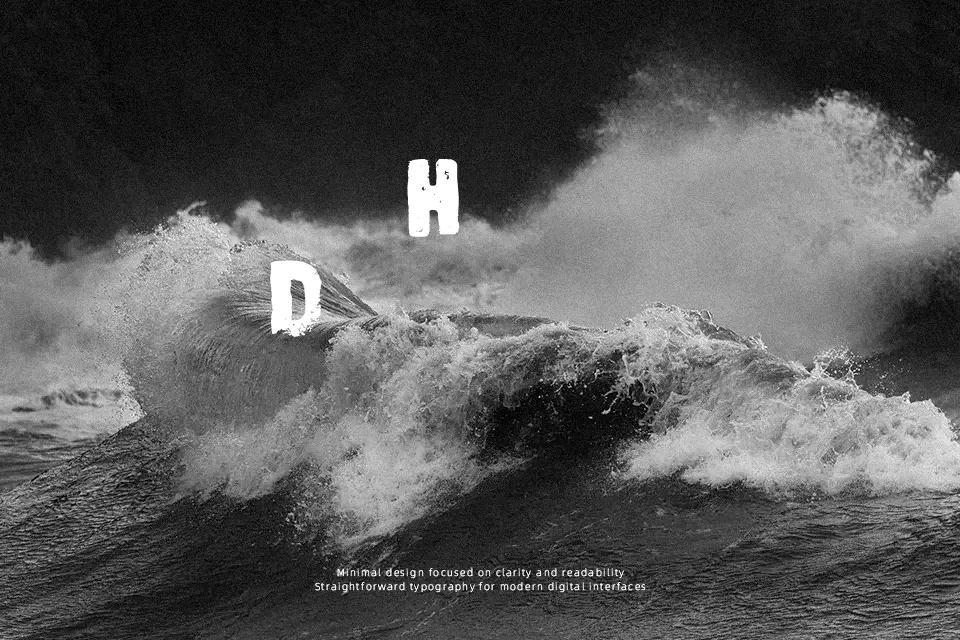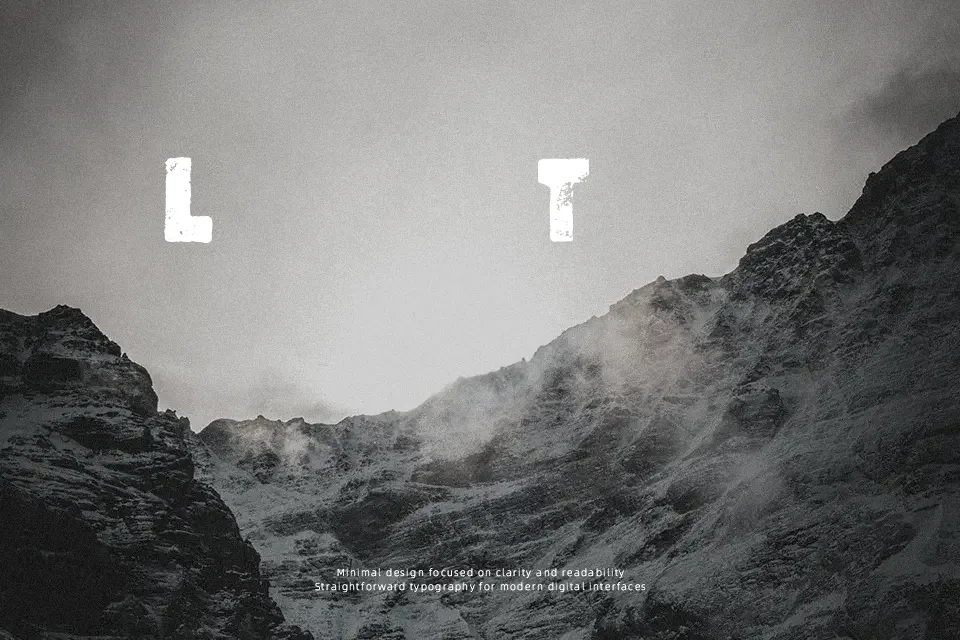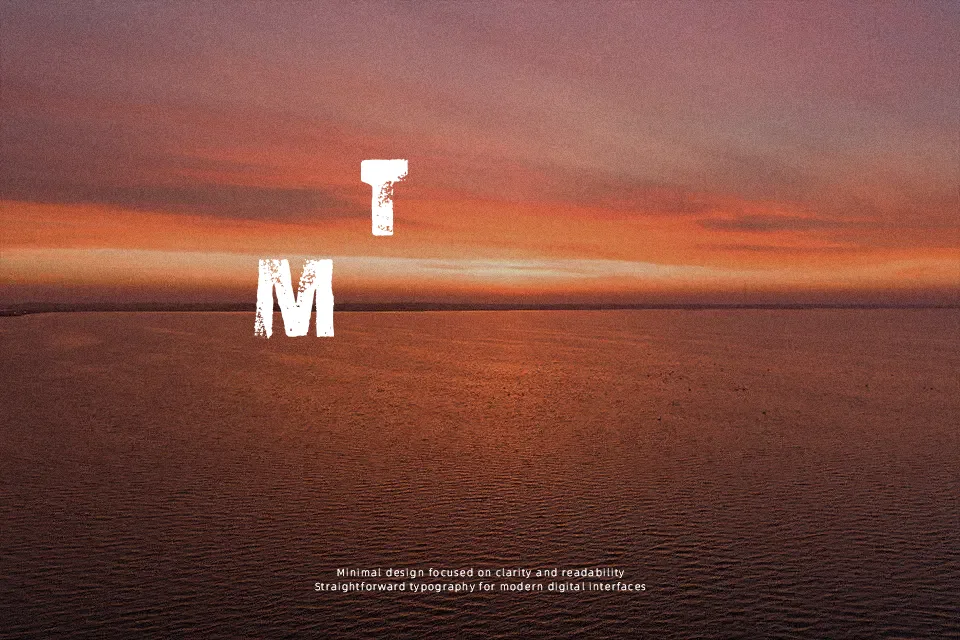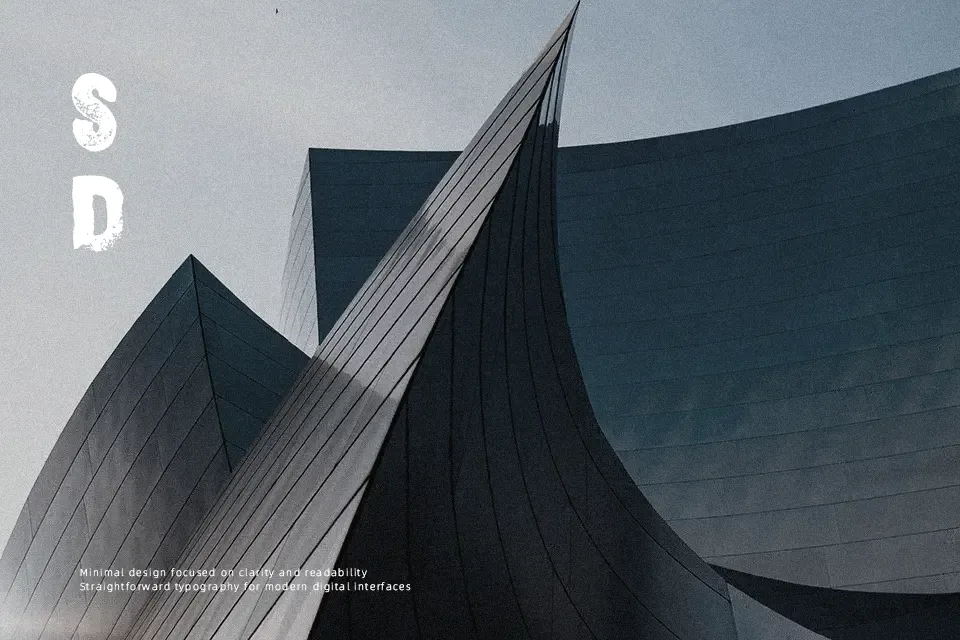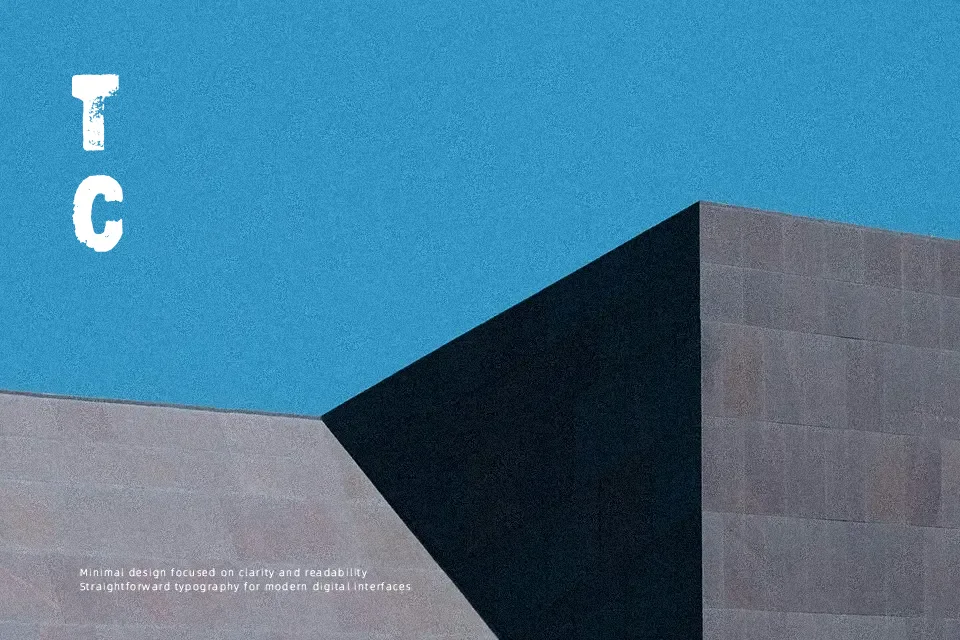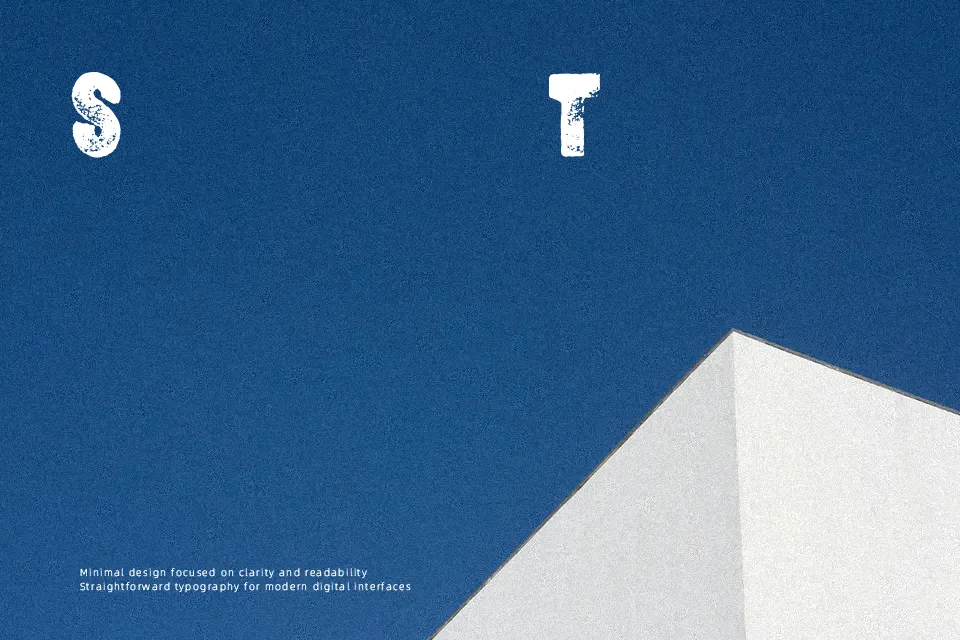
CF Snowboard Project Font
CF Snowboard Project Font features heavy, eroded letterforms defined by aggressive distress textures and thick, impactful strokes. The solid silhouette of each glyph is broken up by irregular cuts and weathered patterns, giving the overall design a rugged, physical quality. Tight spacing and uniform proportions ensure strong visual cohesion across uppercase lines, making the typeface exceptionally effective for bold sports graphics, action posters, and urban apparel. However, the heavy texture and dense weight severely limit clarity at smaller point sizes. For dense text blocks or extended editorial reading, the distressed details merge together and impair legibility.
Best For: action sports branding, extreme sports event posters, streetwear apparel graphics, video game title headers
Not Ideal For: continuous body text, formal corporate documents, small interface labels, dense editorial paragraphs
Perfect for gaming, headline, and packaging, with a bold and decorative style.